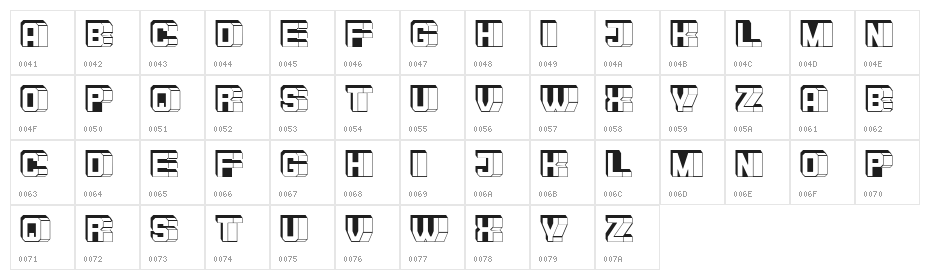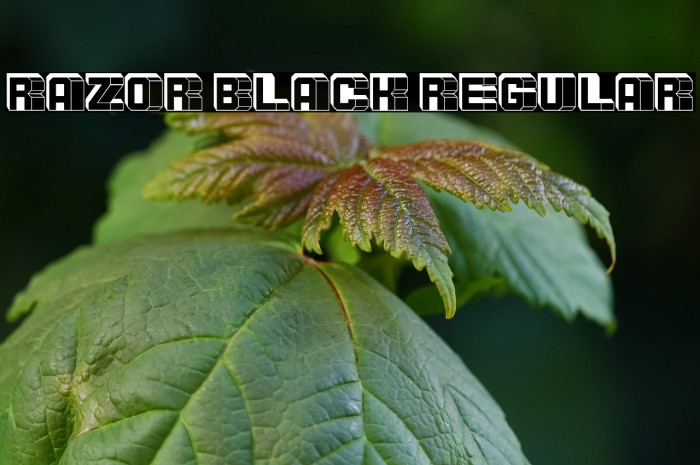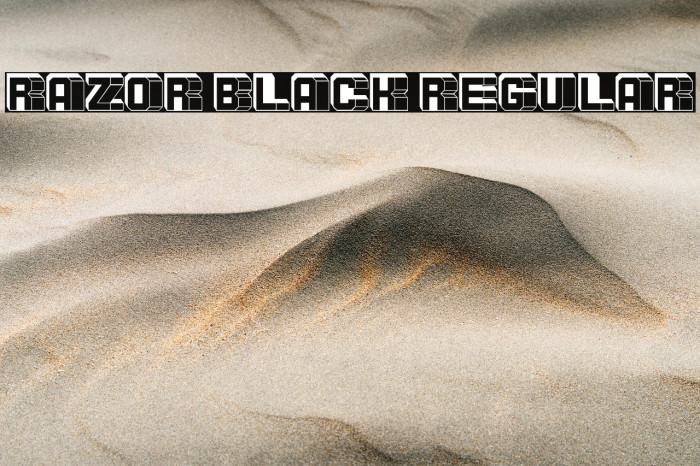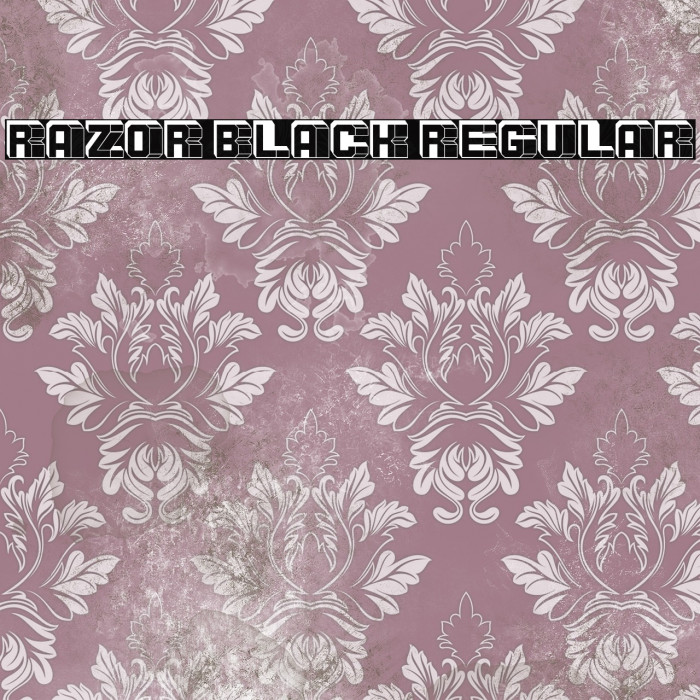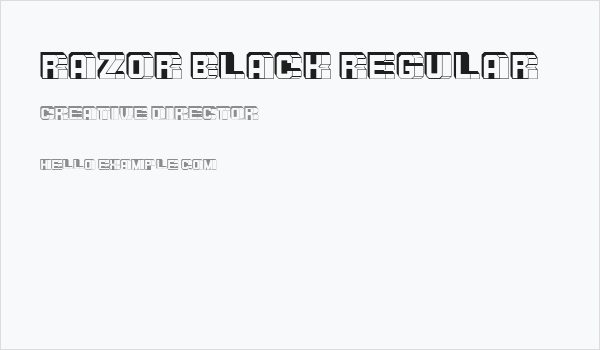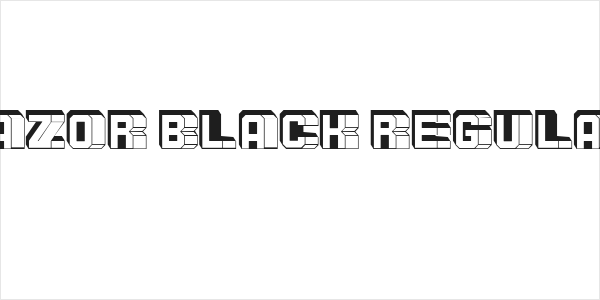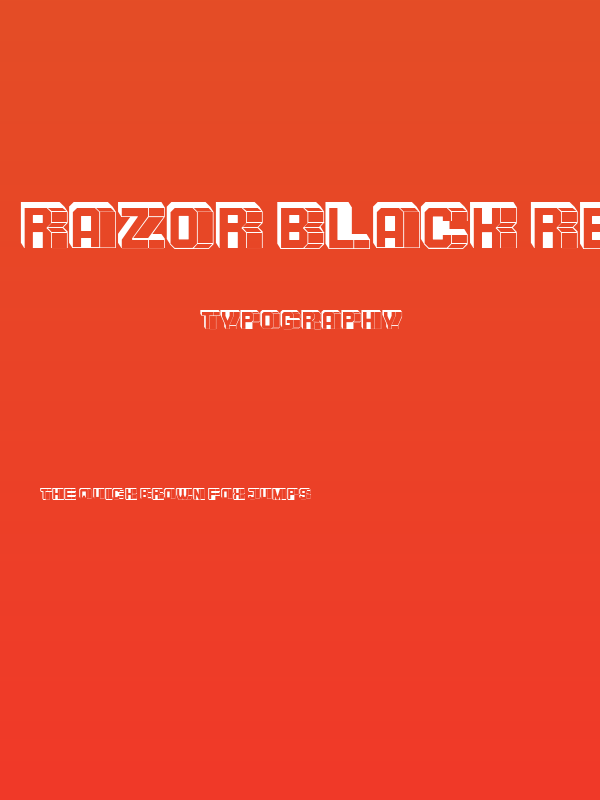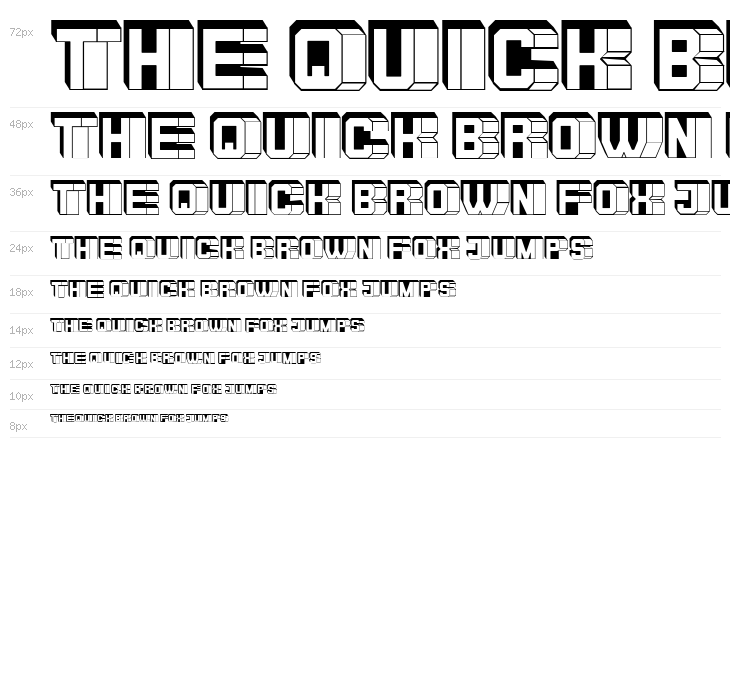
Razor Black Regular Font
Razor Black Regular Description
This font features a bold, geometric design with a three-dimensional effect, giving it a striking and modern appearance. The letters are constructed with sharp angles and clean lines, creating a sense of depth and structure. The use of contrasting black and white areas within each character enhances the dimensionality, making it visually engaging. This style is reminiscent of futuristic or industrial themes, suitable for projects that require a strong visual impact. The uppercase letters are uniform in height, contributing to a cohesive and balanced look.
| Proposed Projects | Ideal for posters, logos, video game titles, and any design needing a futuristic or industrial feel. |